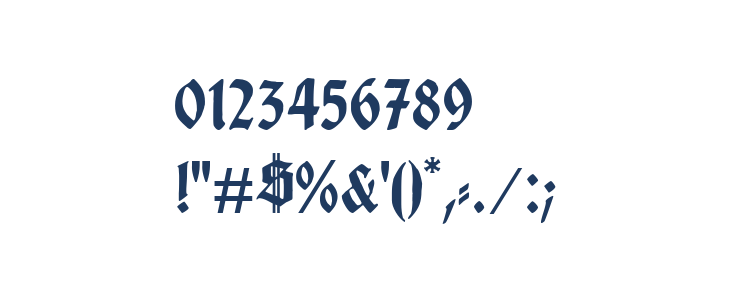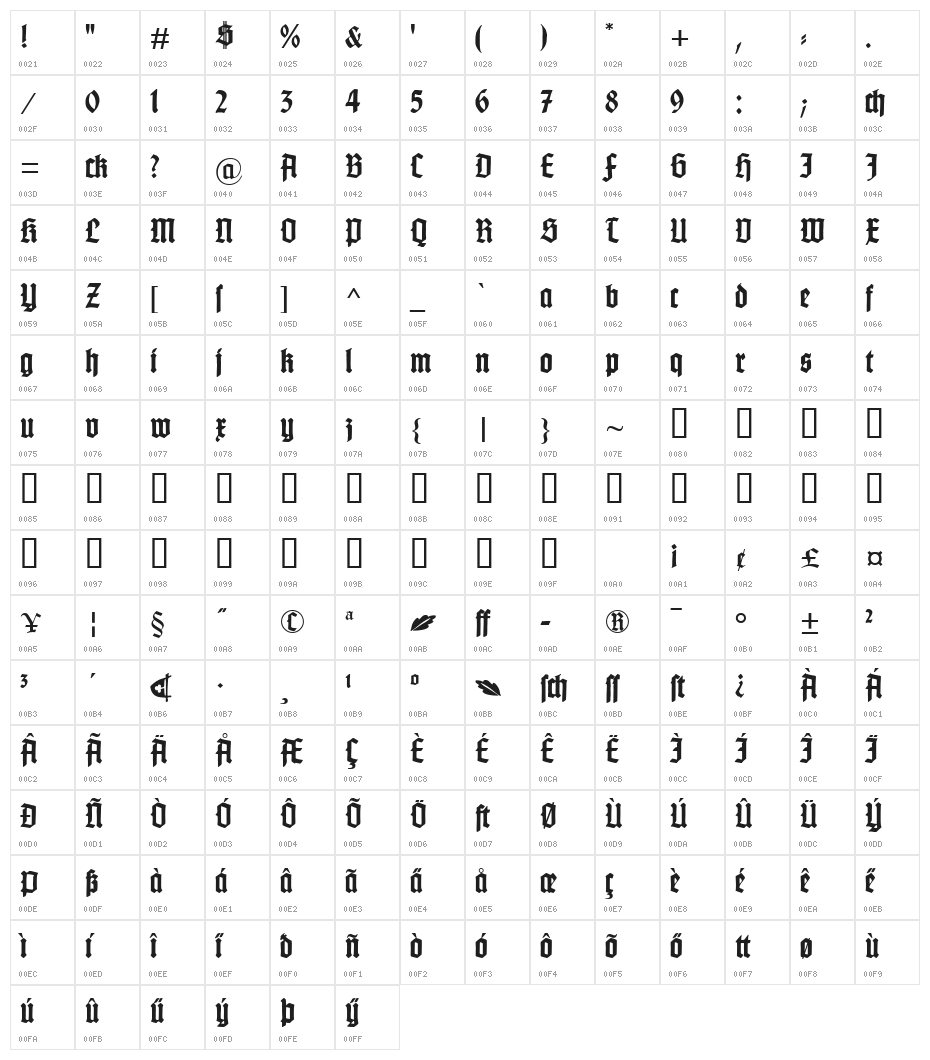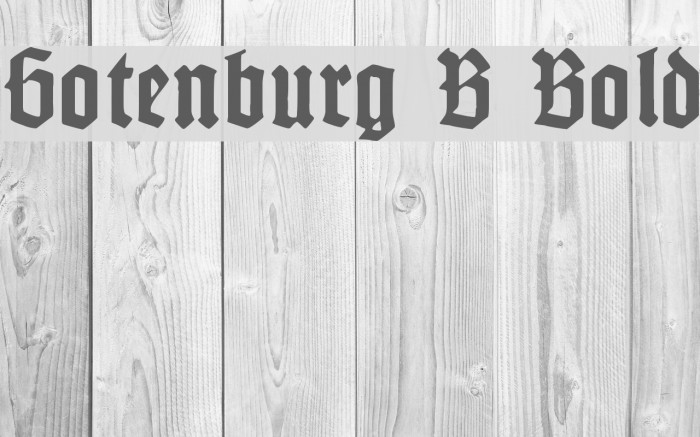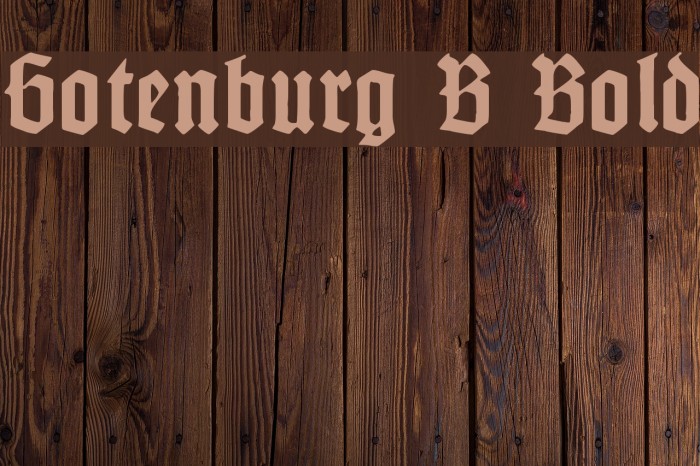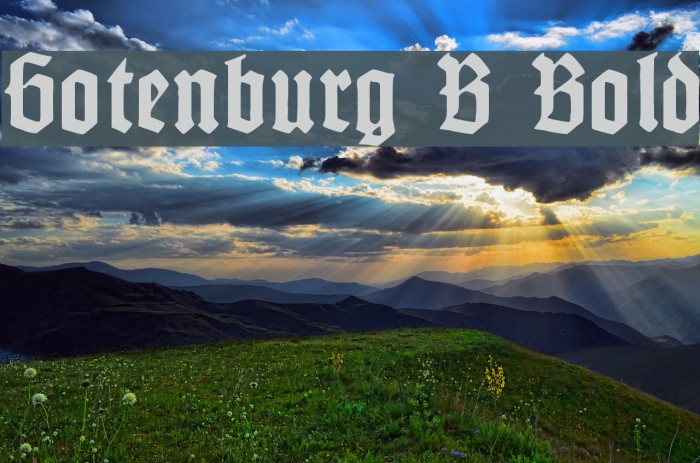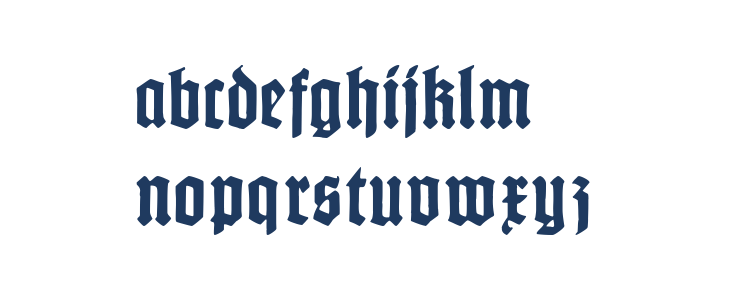
Gotenburg B Bold Font
Gotenburg B Bold Description
This font embodies a traditional Blackletter style, characterized by its bold, dramatic strokes and intricate detailing. The uppercase letters exhibit a strong, angular form with sharp serifs and pointed edges, reminiscent of medieval script. The lowercase letters maintain a consistent style, featuring tight loops and compact shapes that enhance the font's historic aesthetic. Numbers and special characters are designed to match the overall theme, with a consistent weight and style that ensures readability while preserving the decorative nature. This font is ideal for projects that require a touch of classic elegance and historical flair.
| Proposed Projects | Suitable for historical documents, certificates, book covers, and branding that requires a classic, medieval touch. |